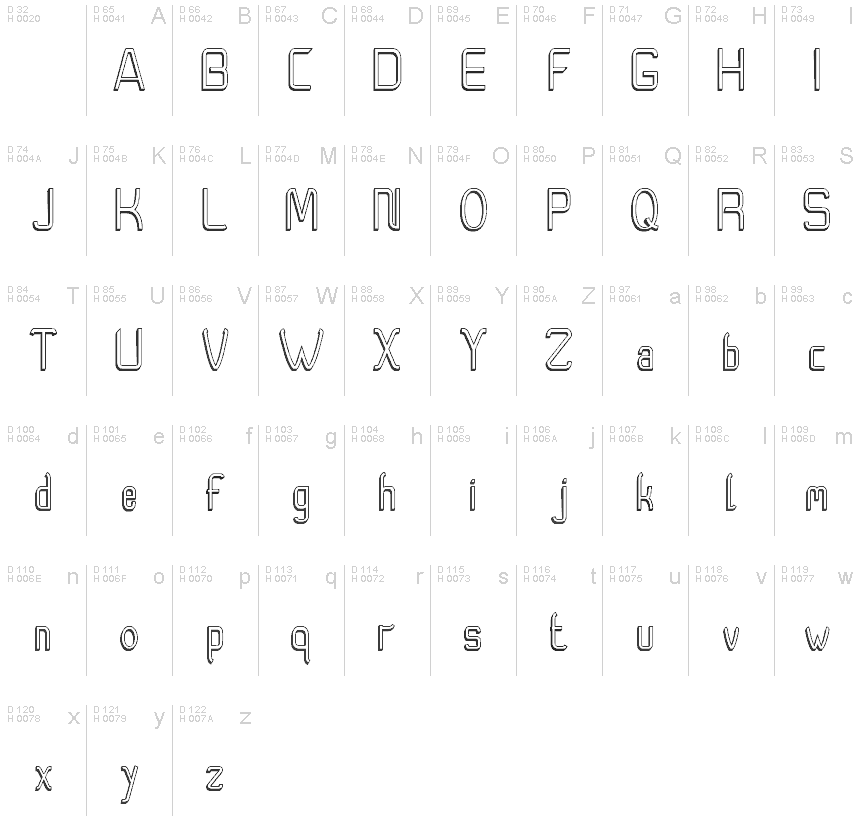
Moedyningsih_Shadow
Moedyningsih Shadow is a captivating display font that exudes a bold, three-dimensional presence. Designed by SSI.Scraps, this condensed font boasts a light weight, lending it a graceful elegance. The intricate shadows cast by each letter create a captivating depth and visual interest, making it an ideal choice for attention-grabbing headlines, poster designs, and branding applications.
The font's unique style and distinctive character lend themselves to a wide range of design projects, from modern and edgy aesthetics to more traditional, sophisticated compositions. Its versatility and striking visual impact make Moedyningsih Shadow a valuable addition to any designer's toolkit, ensuring their work stands out with a touch of impactful, typographic flair.